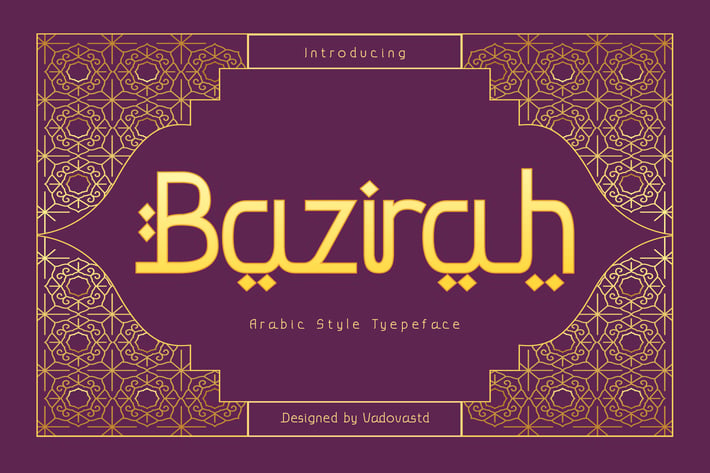
Bazirah Arabic Style Font
Bazirah Arabic Style Font Bazirah is a modern display typeface infused with the charm and rhythm of Arabic calligraphy. Radiating sophistication and cultural depth, it captures the essence of Middle Eastern aesthetics in a contemporary form. Perfectly balanced between ornamental elegance and geometric precision, Bazirah is crafted to evoke timeless luxury with modern usability.
Main Features
Uppercase & Lowercase characters
Bazirah Arabic Style Font Suitable for Ramadan campaigns, Eid promotions, religious branding, boutique packaging, logo design, magazine titles, social media posts, event posters, mosque signage, luxury product packaging, textile branding, religious book covers, restaurant menus, ethnic fashion lookbooks, stationery branding, artisanal food labels, cultural branding, gallery promotions, and perfume packaging.